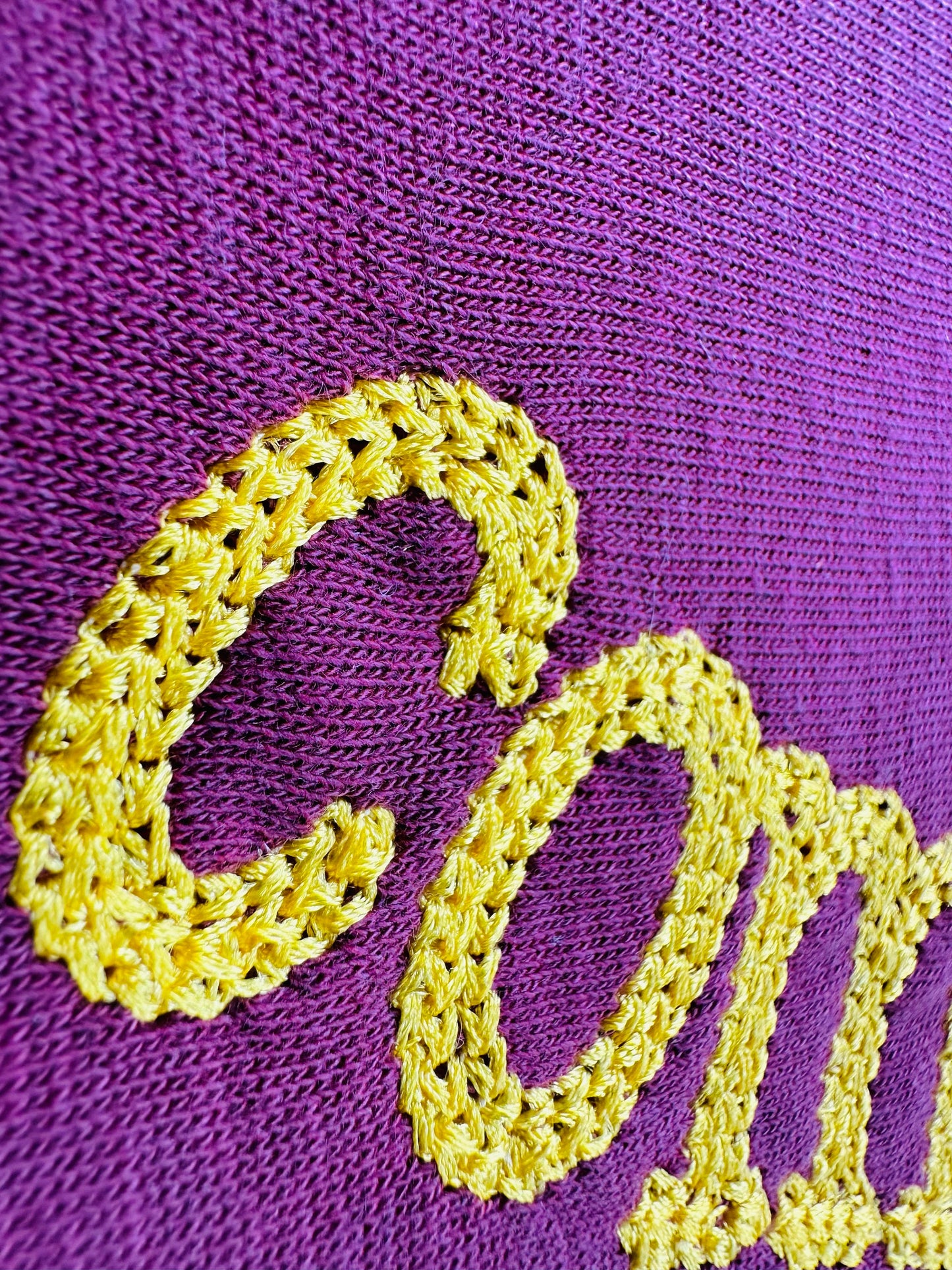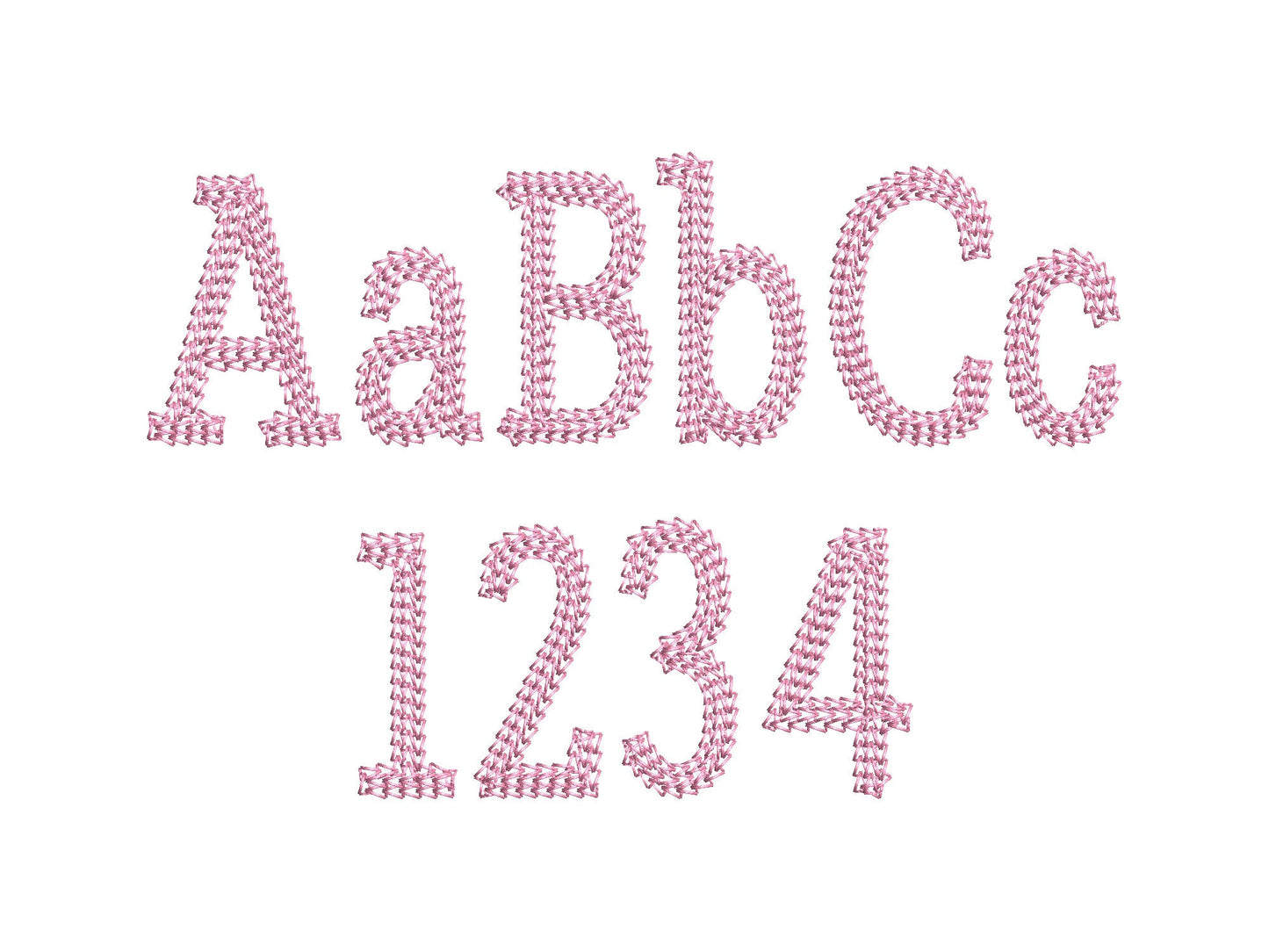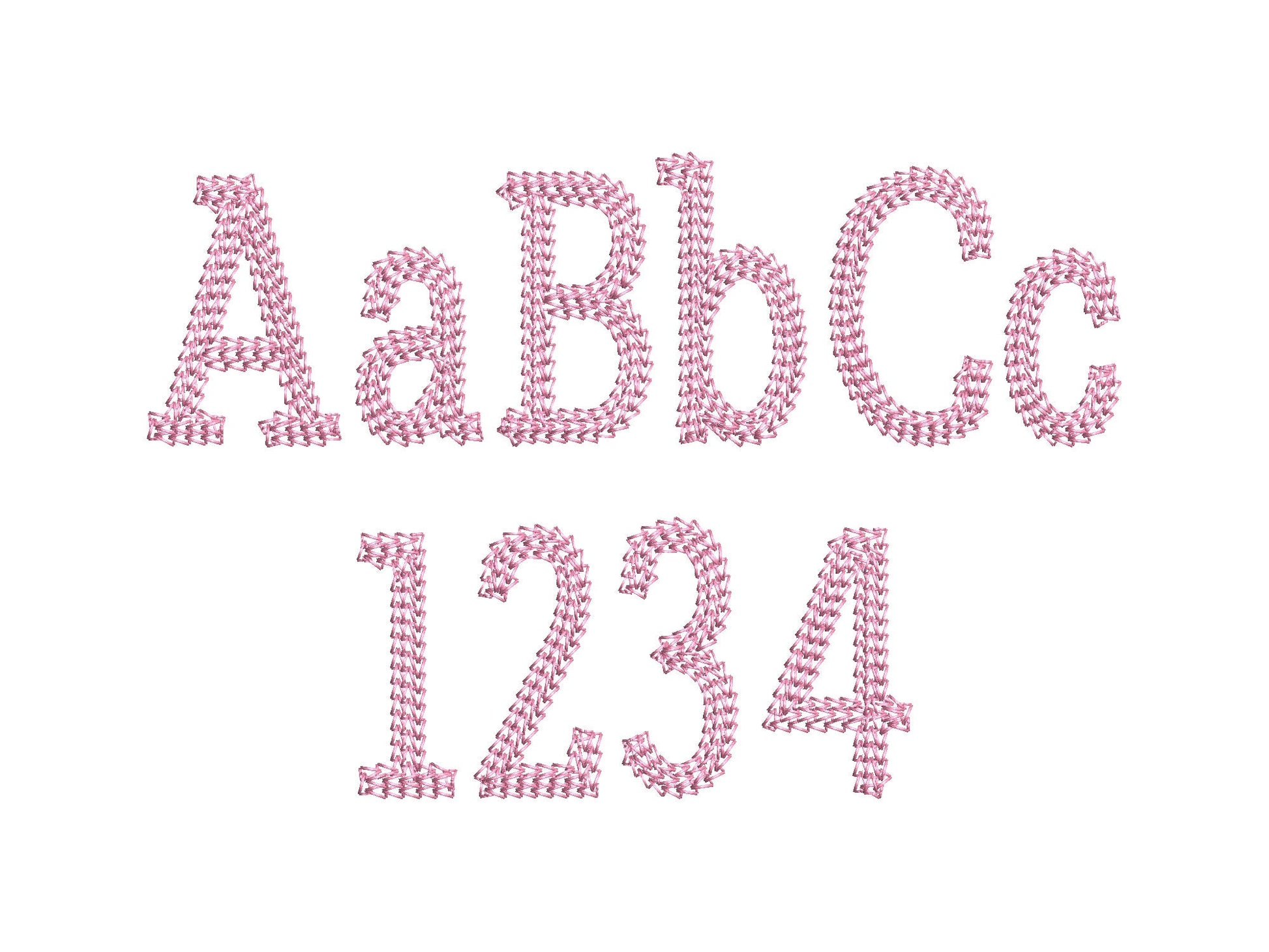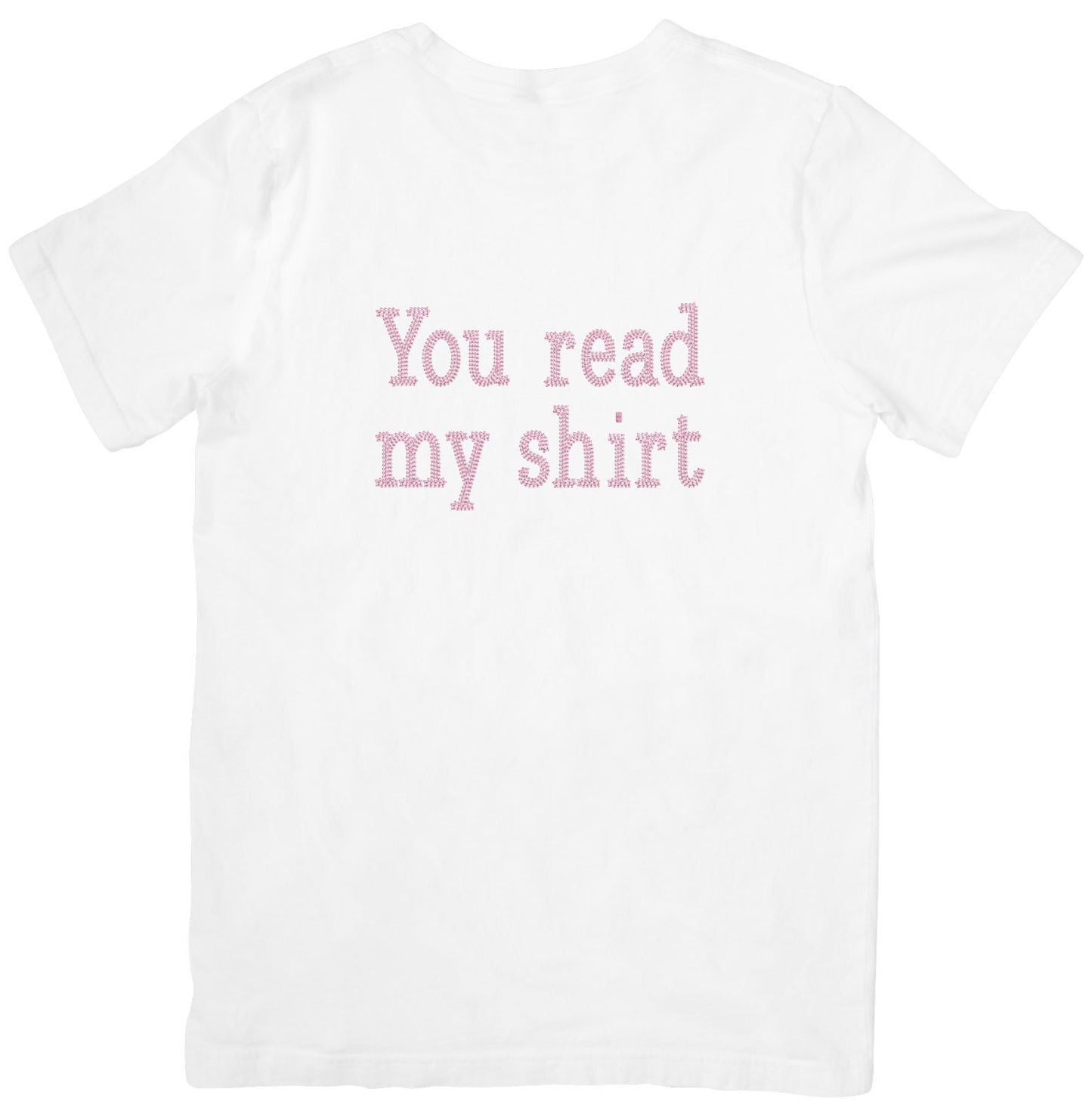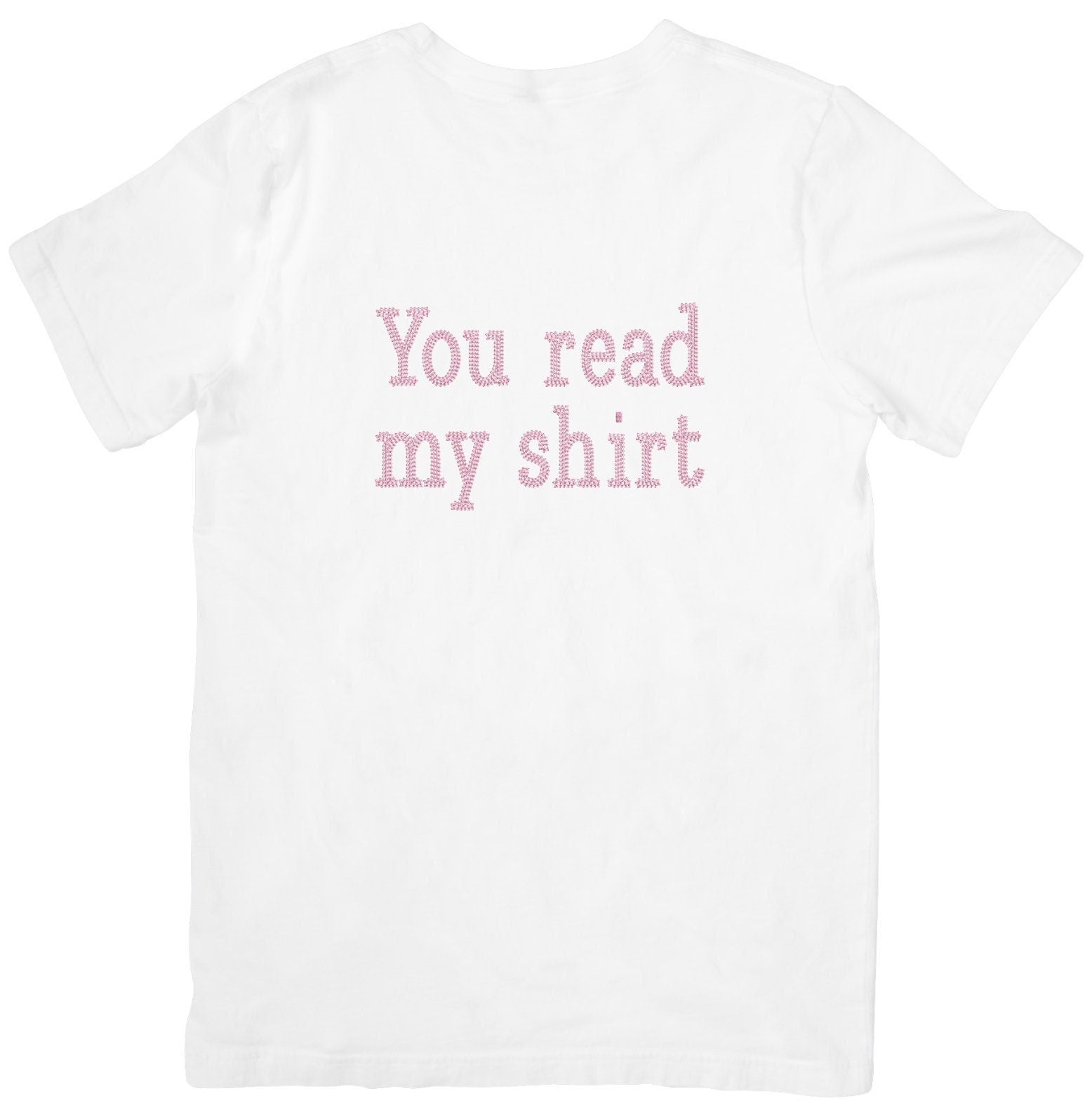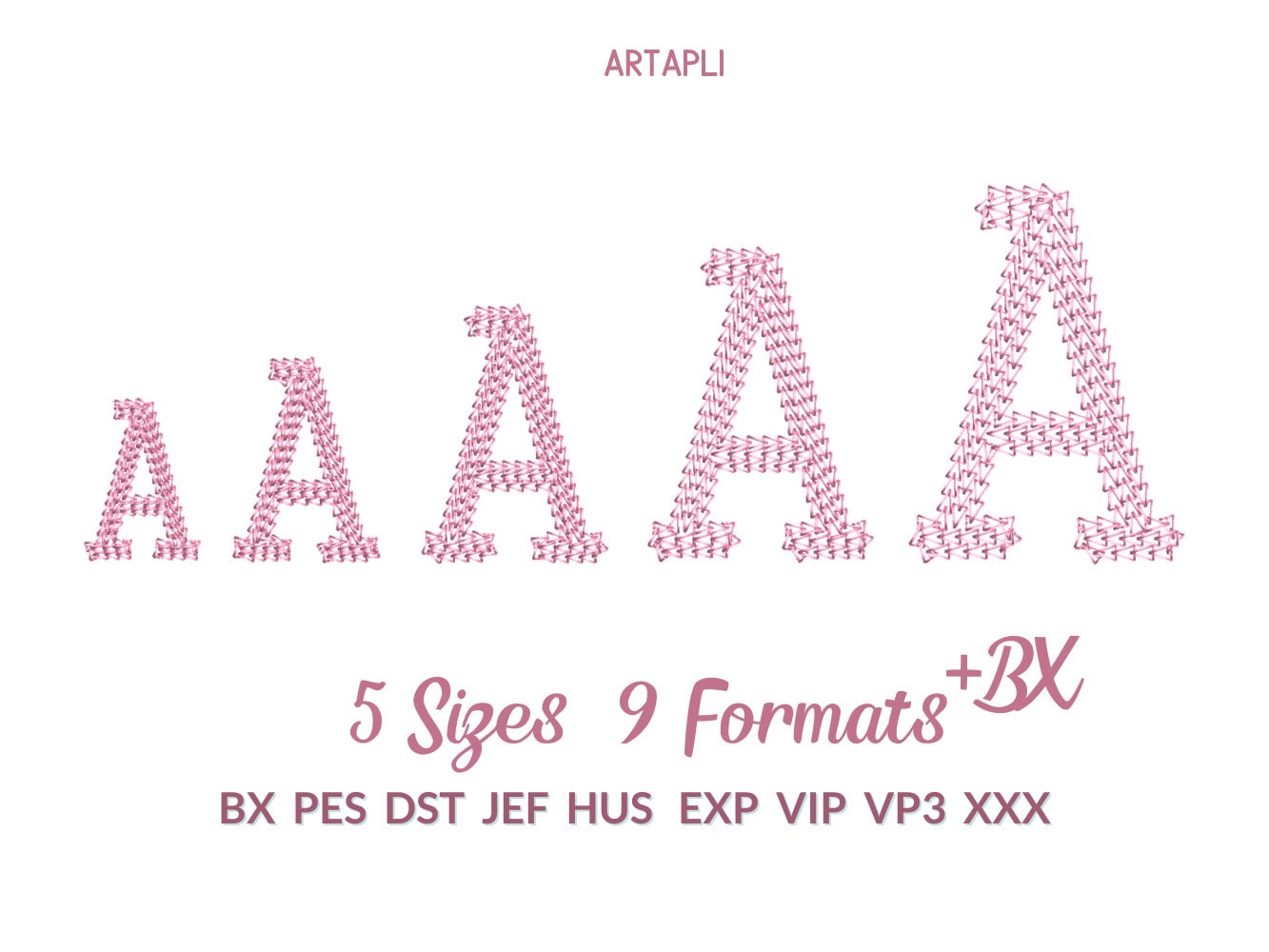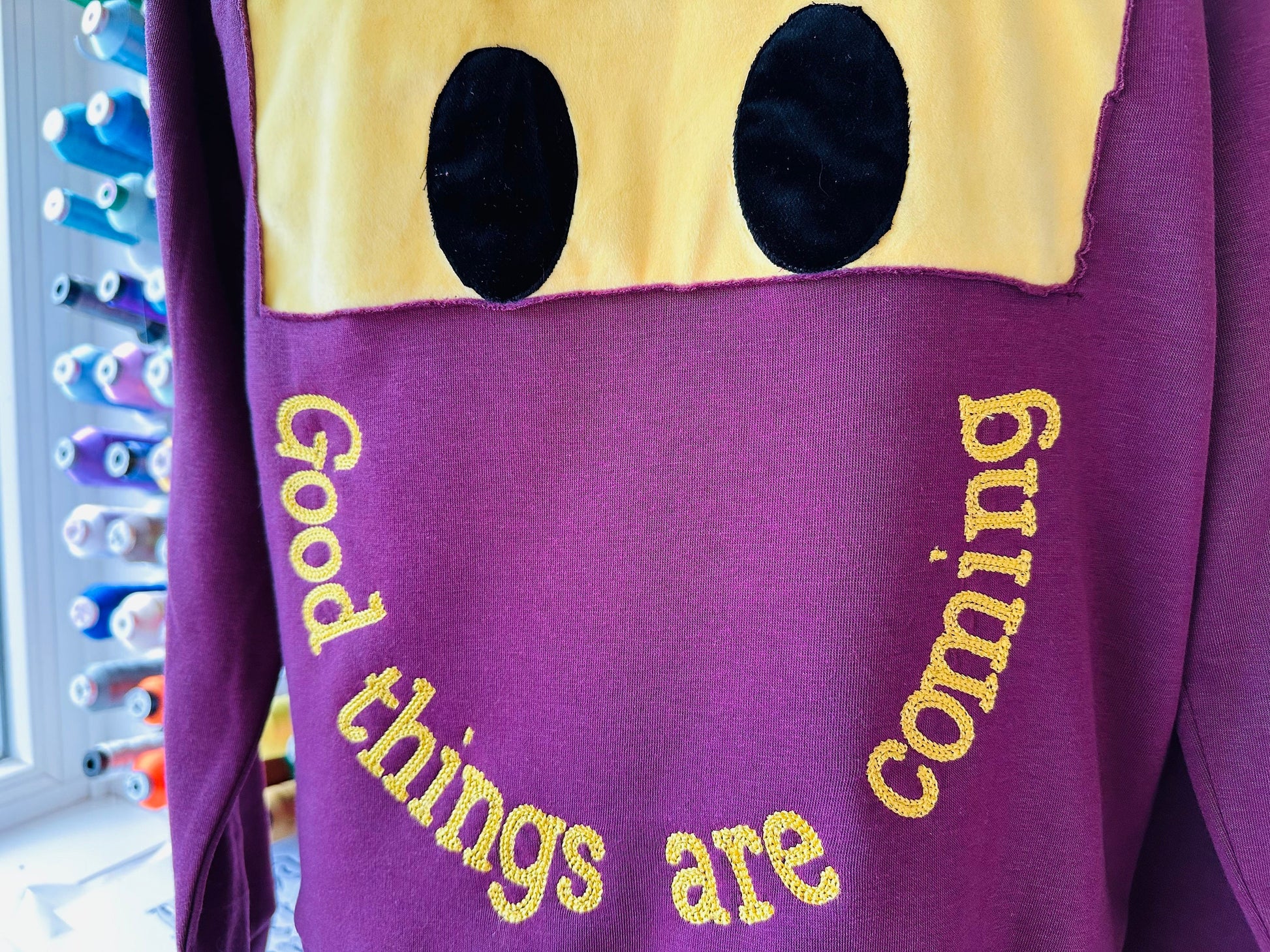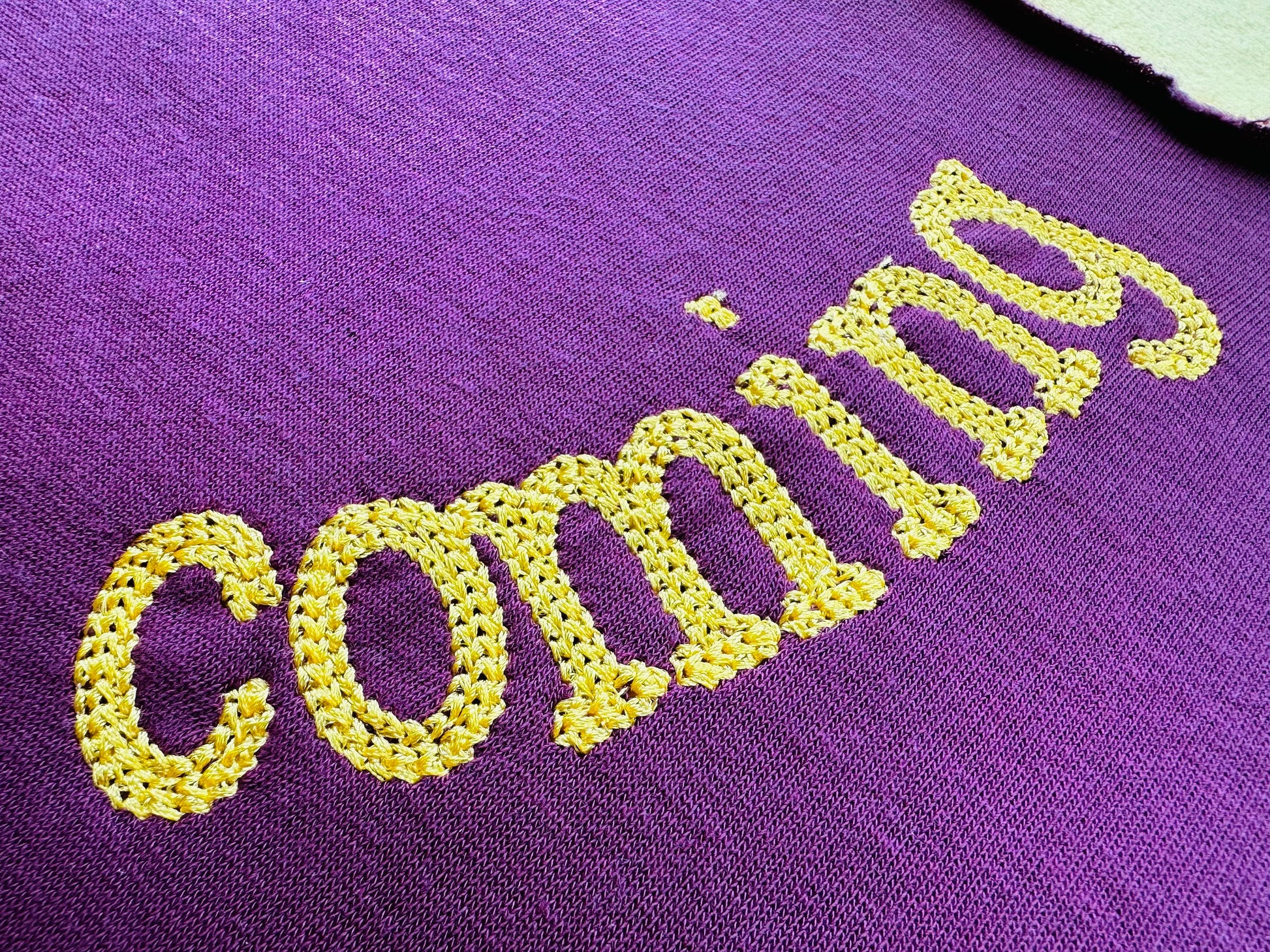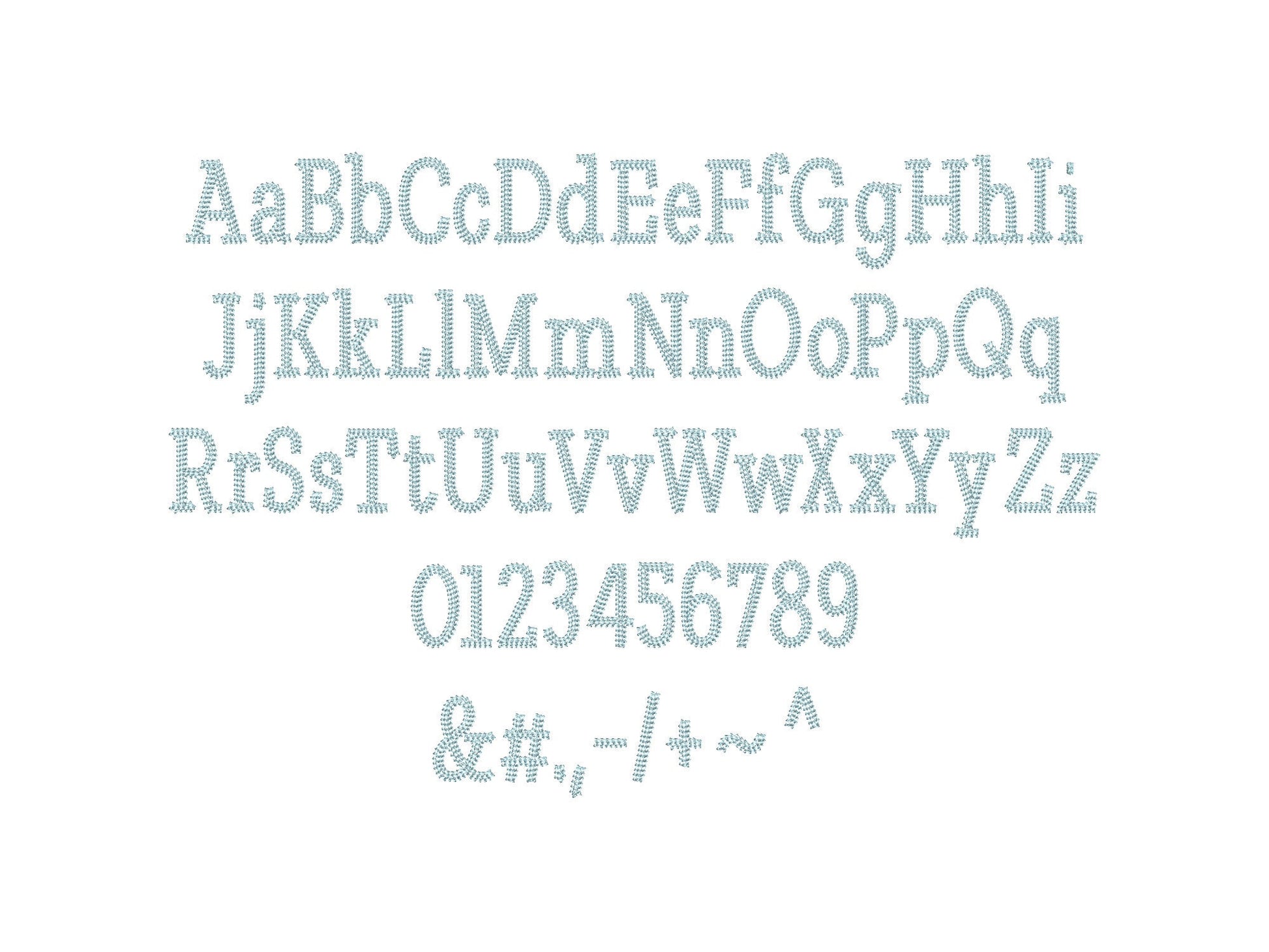
Chain Stitch Block Font
Uppercase and lowercase letters, numbers and punctuation in five sizes: 1.4, 1.8, 2.2, 2.7 and 3.3 inches.
- Chain stitch block font
- Uppercase, lowercase, numbers 0-9, punctuation
- 5 sizes, 1.4 to 3.3 in